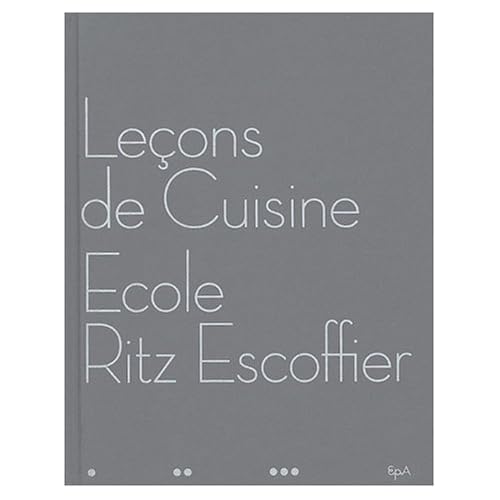
This morning i'm goin mad, i'm tryin to remember the name of a font btu can't.
It's looks like Neutra, but more 'feminine', with longers legs…
Any idea ???
Found a picture :
That does look like Neutraface to me.
ah… maybe thats Neutra display…
yes! it's Neutra